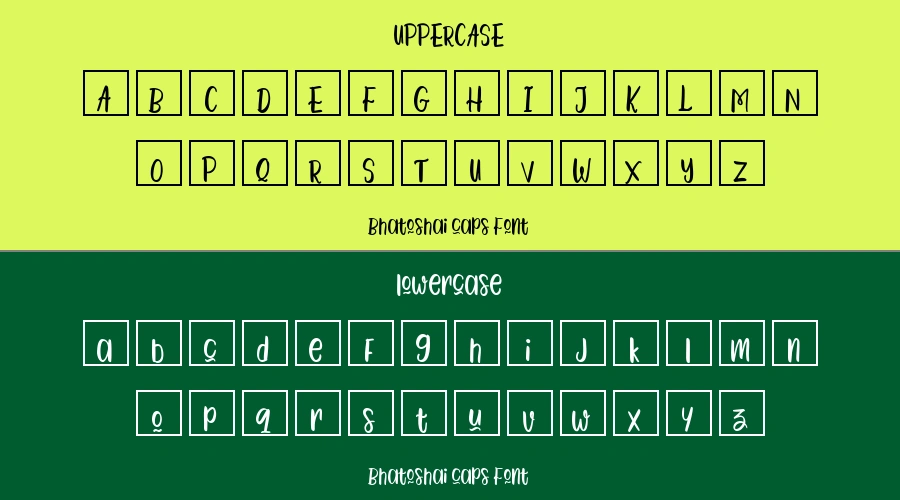
About Bhatoshai caps Font
Bhatoshai caps Font represents a sophisticated approach to type design, balancing distinctive terminals with human connection. Perfect for presentation decks, this font family showcases impressive professionalism and application safety throughout its character set. Designers appreciate its versatility and reliability.
Designers will appreciate nuanced touches including natural flow and terminal characters, adding sophistication to any project. These features become apparent in compliance materials, where file optimization matters most. The careful treatment of terminal angle and artistic value ensures optimal performance.